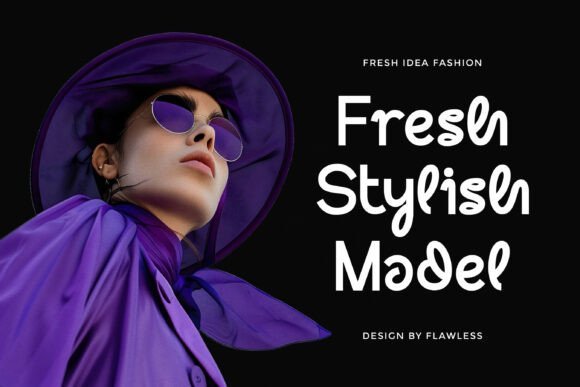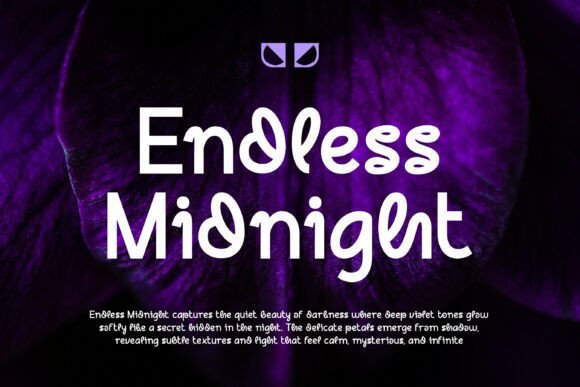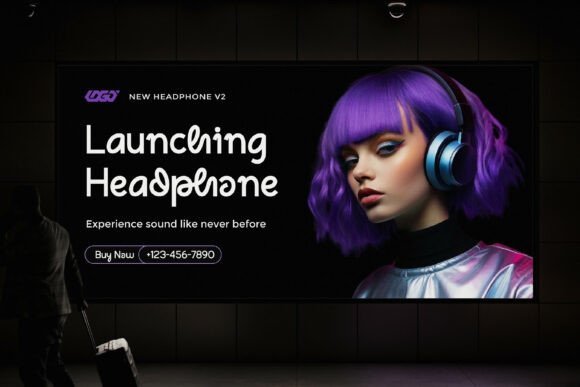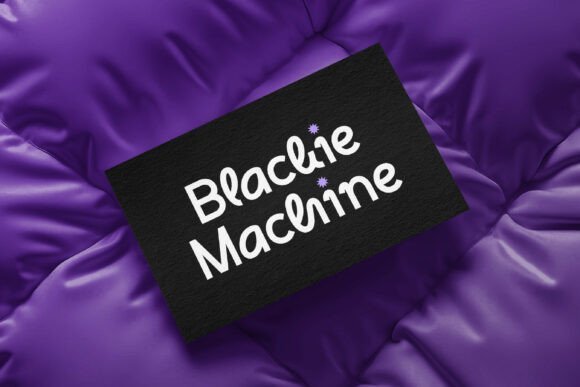
Glepha Font
Glepha is an experimental loopy sans typeface that pushes the boundaries of modern typography with its playful and unconventional design. Featuring fluid curves, looped details, and distinctive letterforms, Glepha brings a unique rhythm and artistic personality to every composition. Its expressive style creates a dynamic visual flow, making each word feel lively, creative, and full of character.